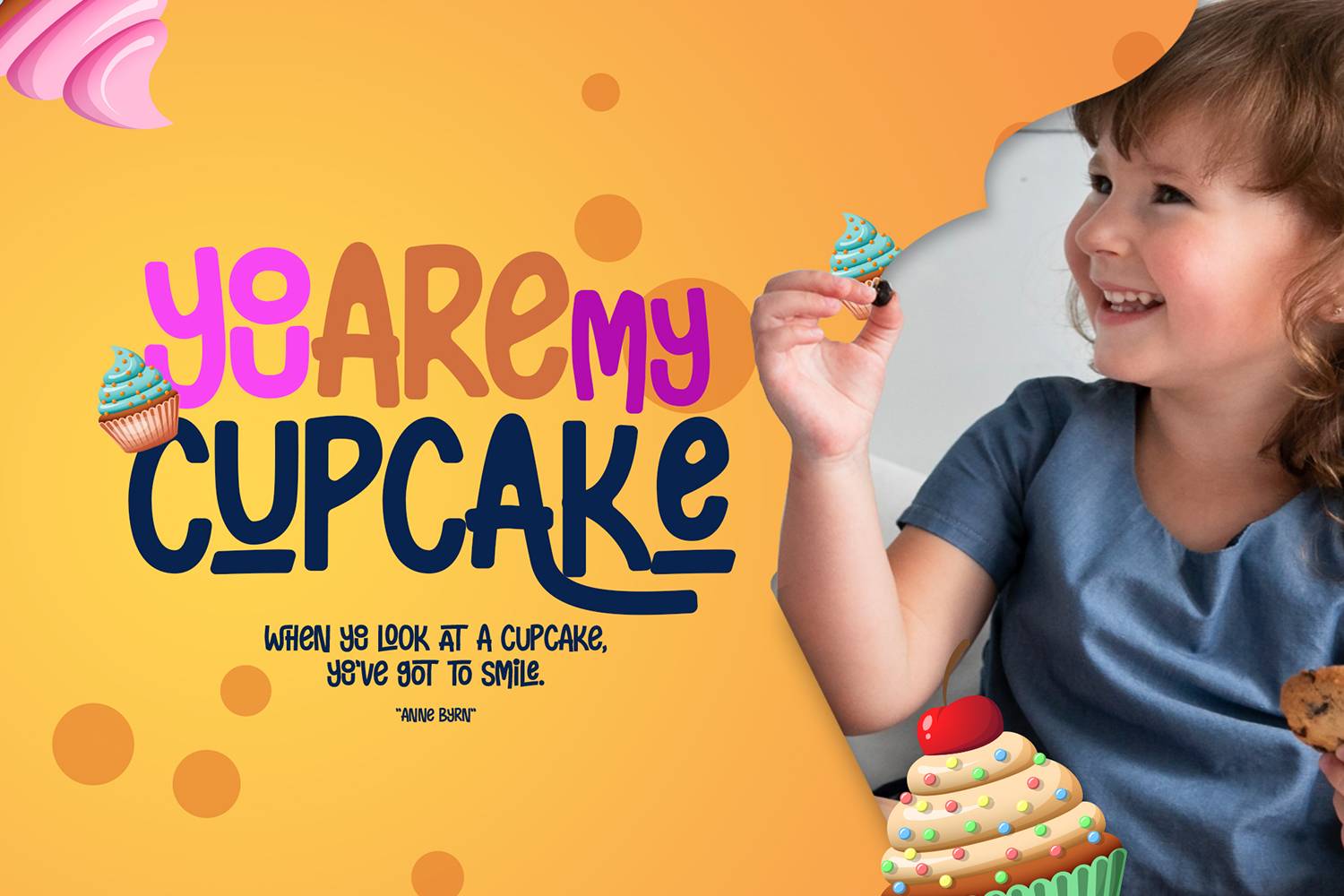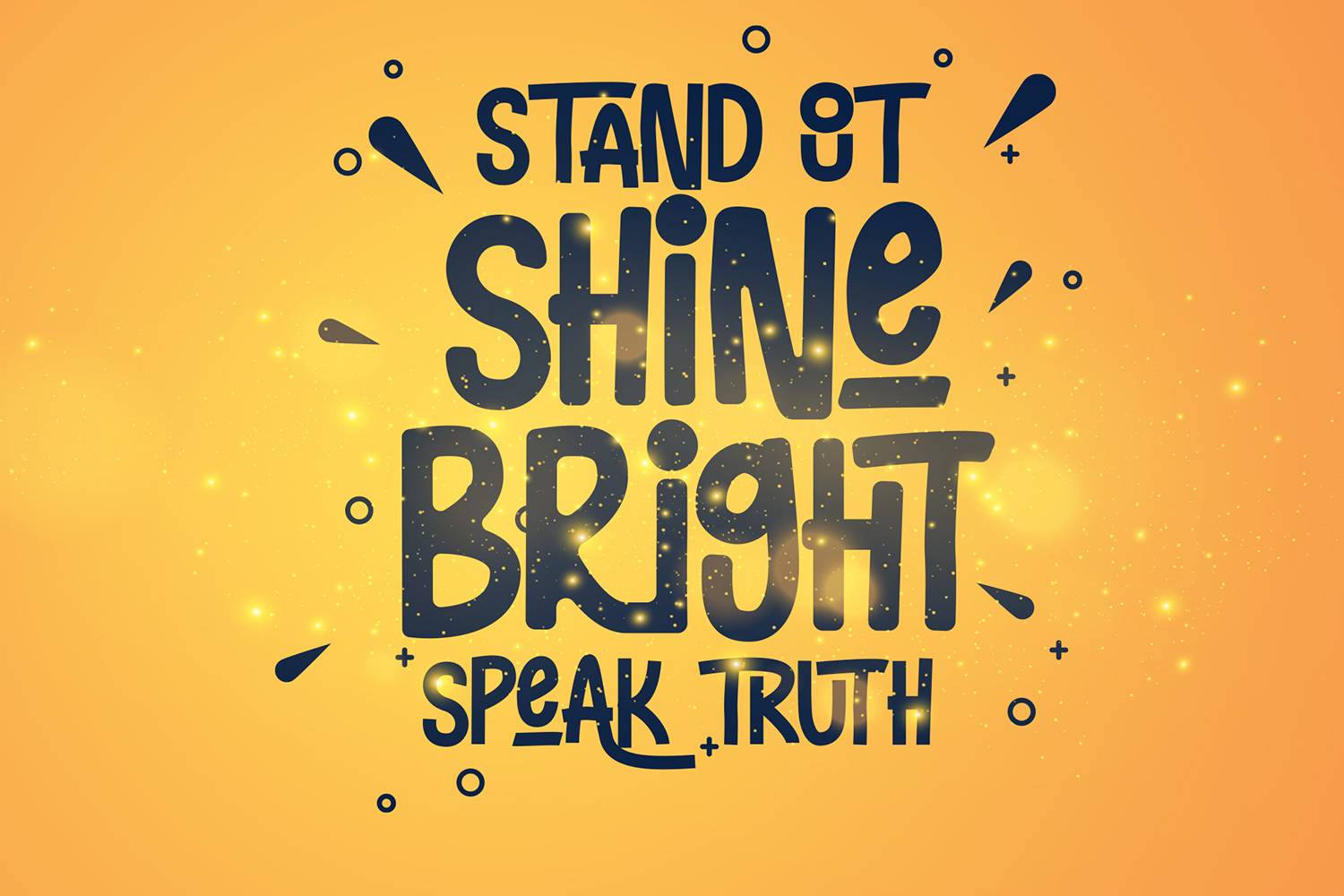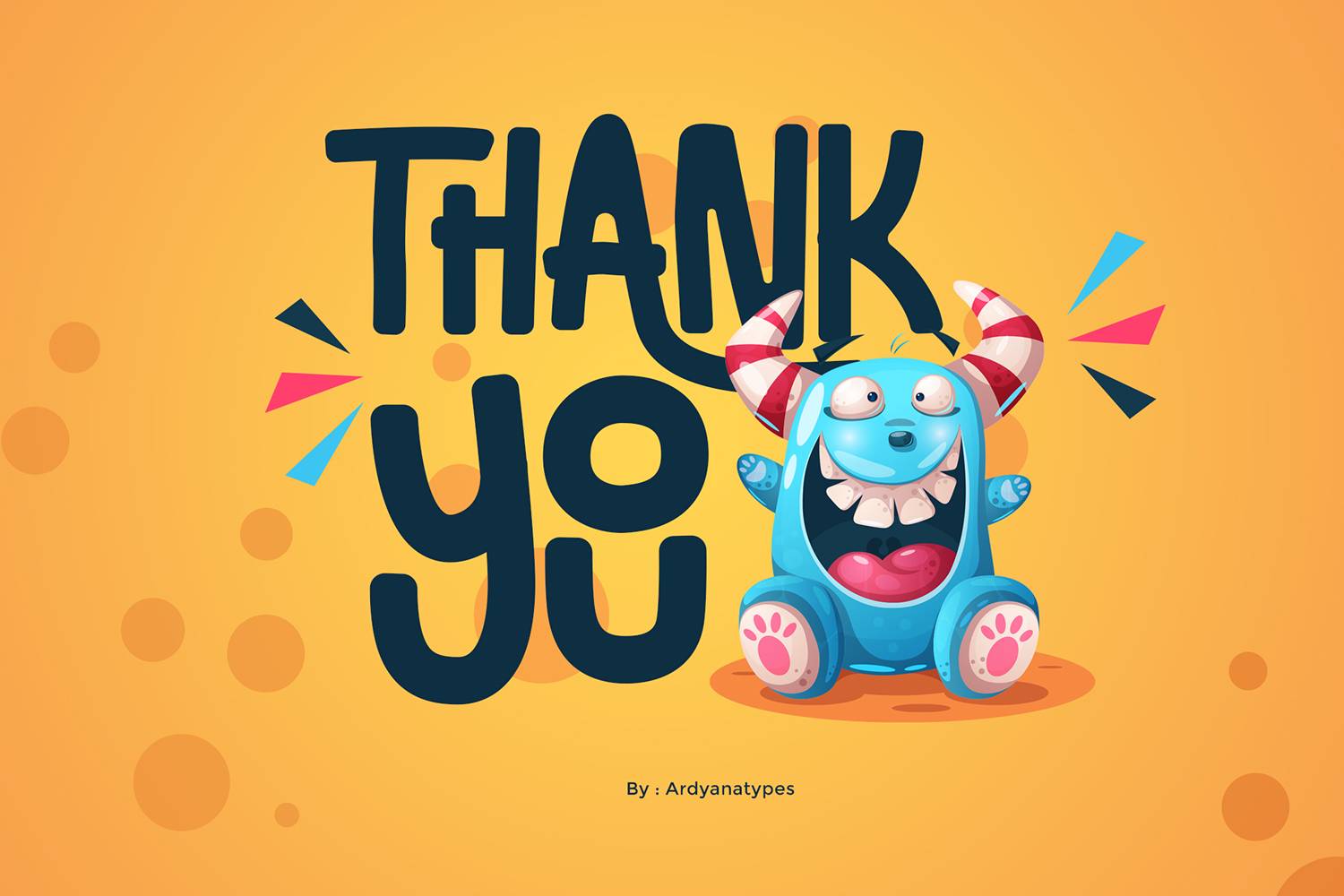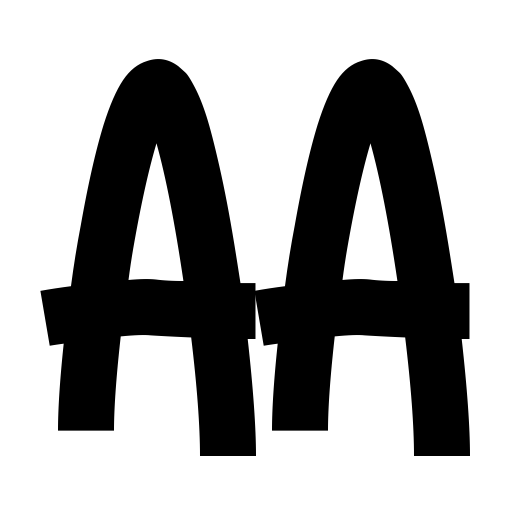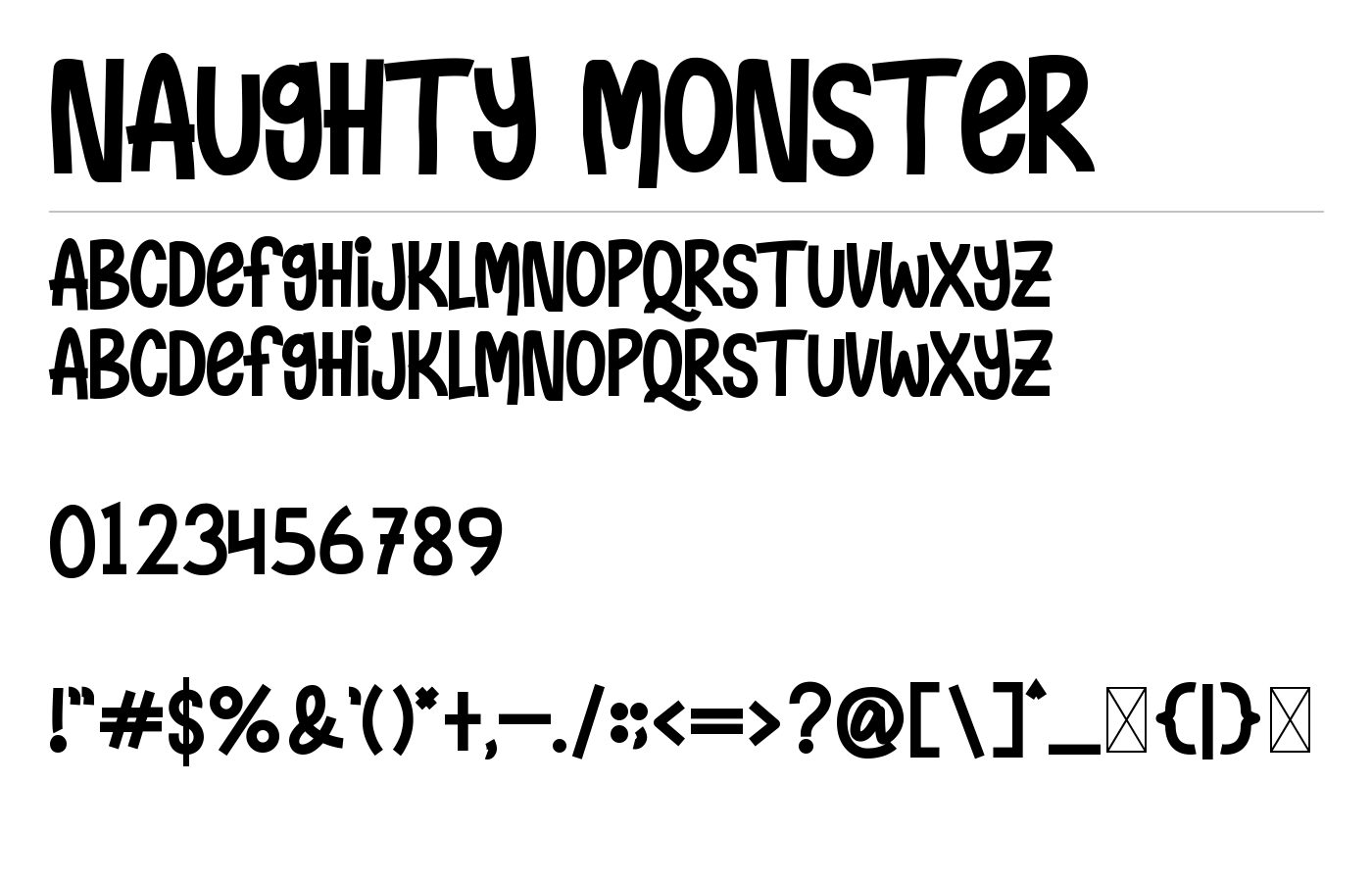
Naughty Monster is a playful, hand-drawn sans serif font with a quirky, uneven character style that brings a lively and fun energy to any design. Its bold, irregular letterforms and casual strokes make it perfect for children's projects, cartoons, or informal branding that aims to capture a mischievous, whimsical mood. This font works best in headlines, logos, and creative packaging where a friendly, approachable vibe is desired.
Naughty Monster Font
About Naughty Monster Font
| Font family | Naughty Monster Font |
| Release date | 2020-04-24 |
| Designer | Ardyanatypes |